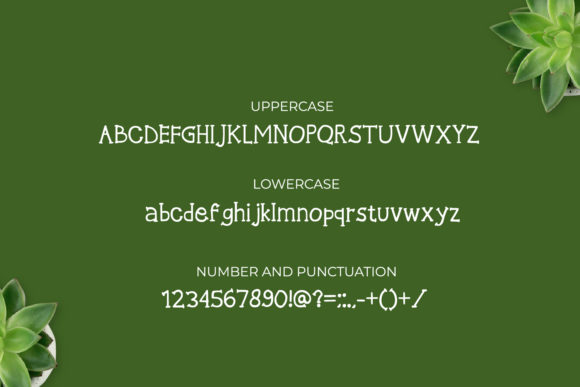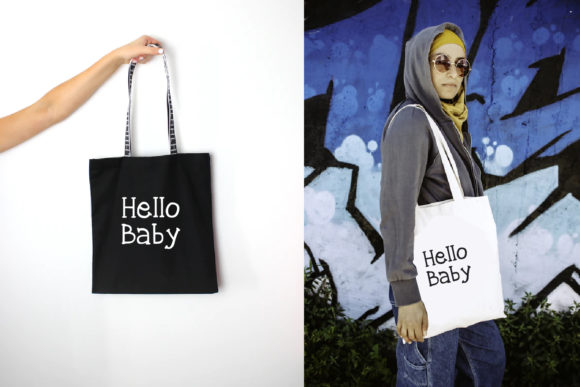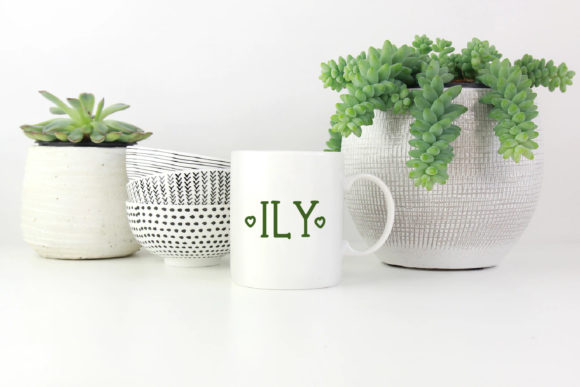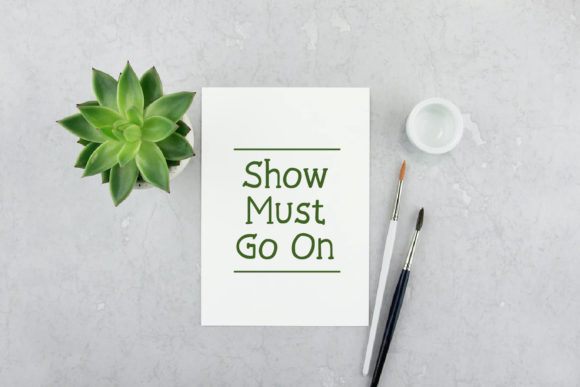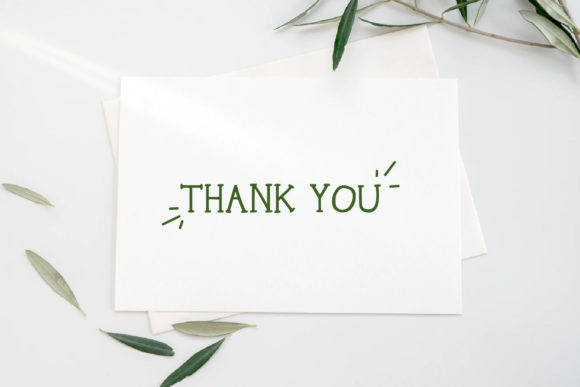
Introduction to Colbuto Font
Colbuto is a cute and simple display font.
Fall in love with its incredibly versatile style and use it to create spectacular designs .